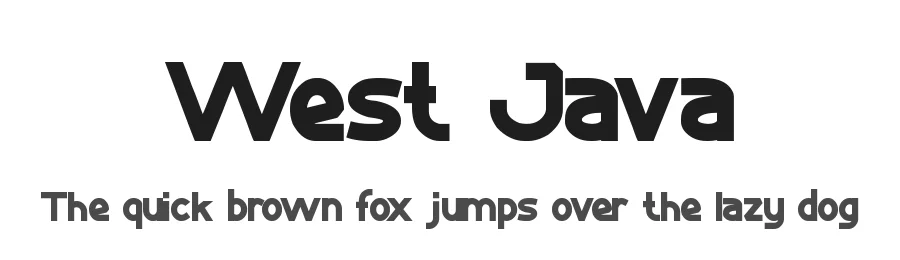
About Paranoid Font
Paranoid is a decorative font designed by Lokidesign. It includes 80 glyphs, a regular weight, OTF (CFF) format, and 107 languages. Paranoid is free to download; check the license details on this page before commercial use. Decorative fonts like Paranoid work best for logos, posters, packaging, and standout headlines.
| Designer | LOKi design |
Paranoid Font is a decorative font that shines as a display or heading face. Pair it with a clean sans-serif or serif font for body text β the contrast creates a clear hierarchy while the two styles stay balanced and easy to read.
Paranoid Font
by Lokidesign
Paranoid Font is a decorative typeface by Lokidesign, ideal for logos, invitations, branding, and creative projects.